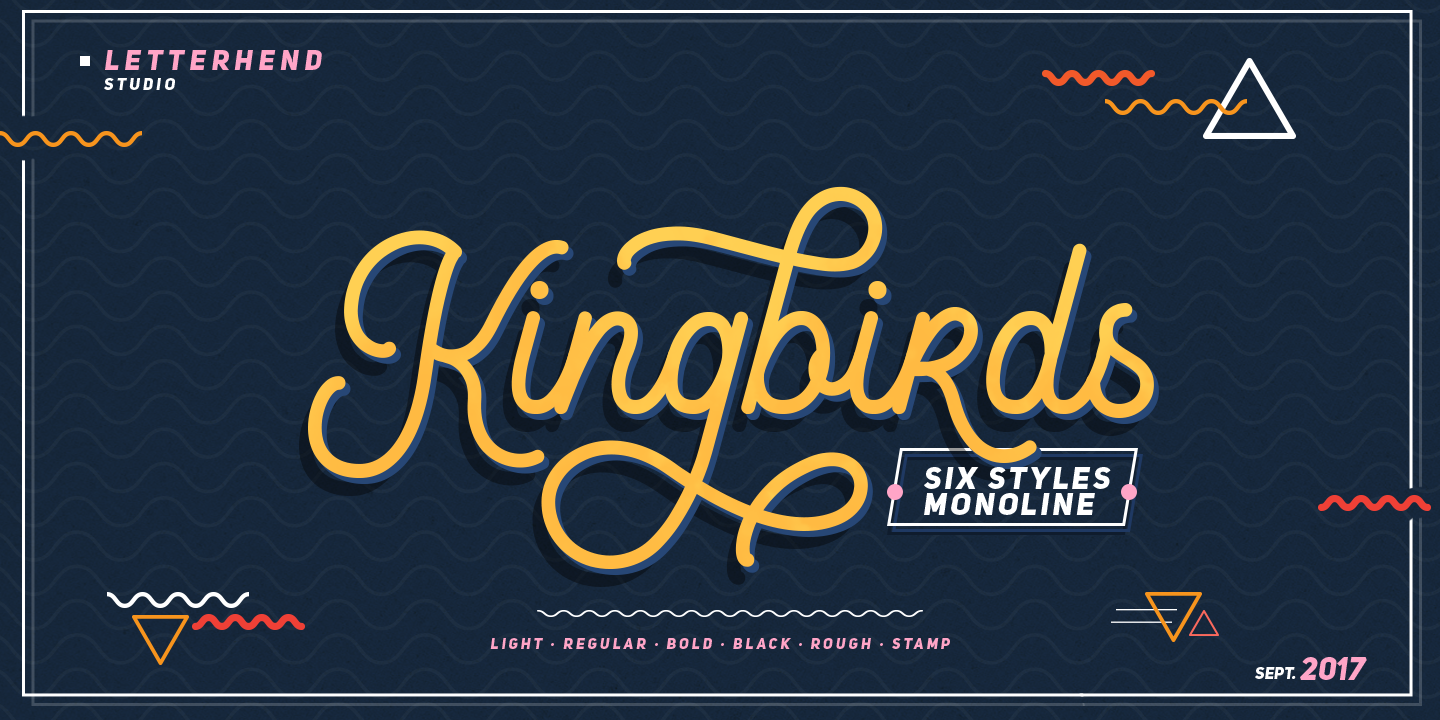
Kingbirds Font is perfect for wildlife conservation campaigns, nature documentary titles, bird watching organization materials, ornithology publications, outdoor adventure branding, environmental education programs, wildlife photography portfolios, and natural sanctuary signage.
This font is exciting because it captures the majestic freedom and graceful power of birds in flight with soaring letterforms that evoke the beauty of nature and the spirit of untamed wilderness. The Kingbirds Font embodies the elegance of avian grace and natural sovereignty, transforming ordinary text into inspiring expressions that celebrate the wonder of wildlife and the importance of protecting our natural heritage.
The Kingbirds Font family includes nature-inspired variations such as Regular, Bold, Light, Soaring, Italic, Feathered, Condensed, and Extended versions, providing wildlife designers with comprehensive tools to create authentic typography that honors avian beauty and promotes environmental awareness across all conservation applications and nature communications.
Take flight with natural beauty using Kingbirds Font Free Download that brings wildlife majesty to every environmental design project. This naturally inspired typeface combines ornithological aesthetics with contemporary functionality, making it perfect for conservation organizations, nature centers, and wildlife photographers celebrating the beauty and importance of bird life and environmental protection. The font's graceful character design ensures your message feels inspiring and connected to nature while maintaining excellent readability across all wildlife applications. Whether you're developing conservation campaign materials, creating wildlife education content, or designing communications that promote environmental stewardship, Kingbirds Font delivers the majestic typography that resonates with audiences who appreciate natural beauty and wildlife conservation. Its versatile design works beautifully across digital and print media while preserving the soaring spirit that makes wildlife communications feel genuinely inspiring and worthy of the respect that our natural world and its magnificent creatures deserve in our efforts to protect and preserve the environment for future generations.